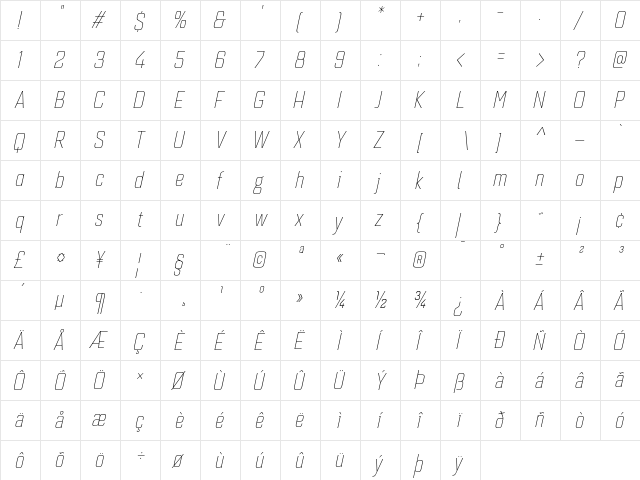
Quarca Cond Thin Italic Font Preview
Design Context for Quarca Typeface
Quarca is a composed and adaptable typeface that performs quietly and consistently across a wide range of design contexts. The dynamic lean of this cut emphasises speed and emphasis in any layout. Its slender proportions lend an understated elegance to any composition. The condensed width makes it efficient for tight spaces without sacrificing legibility.
Pro Tip: Use Quarca for emphasis, pull quotes, and subheadings where its slanted energy can add rhythm to the layout.